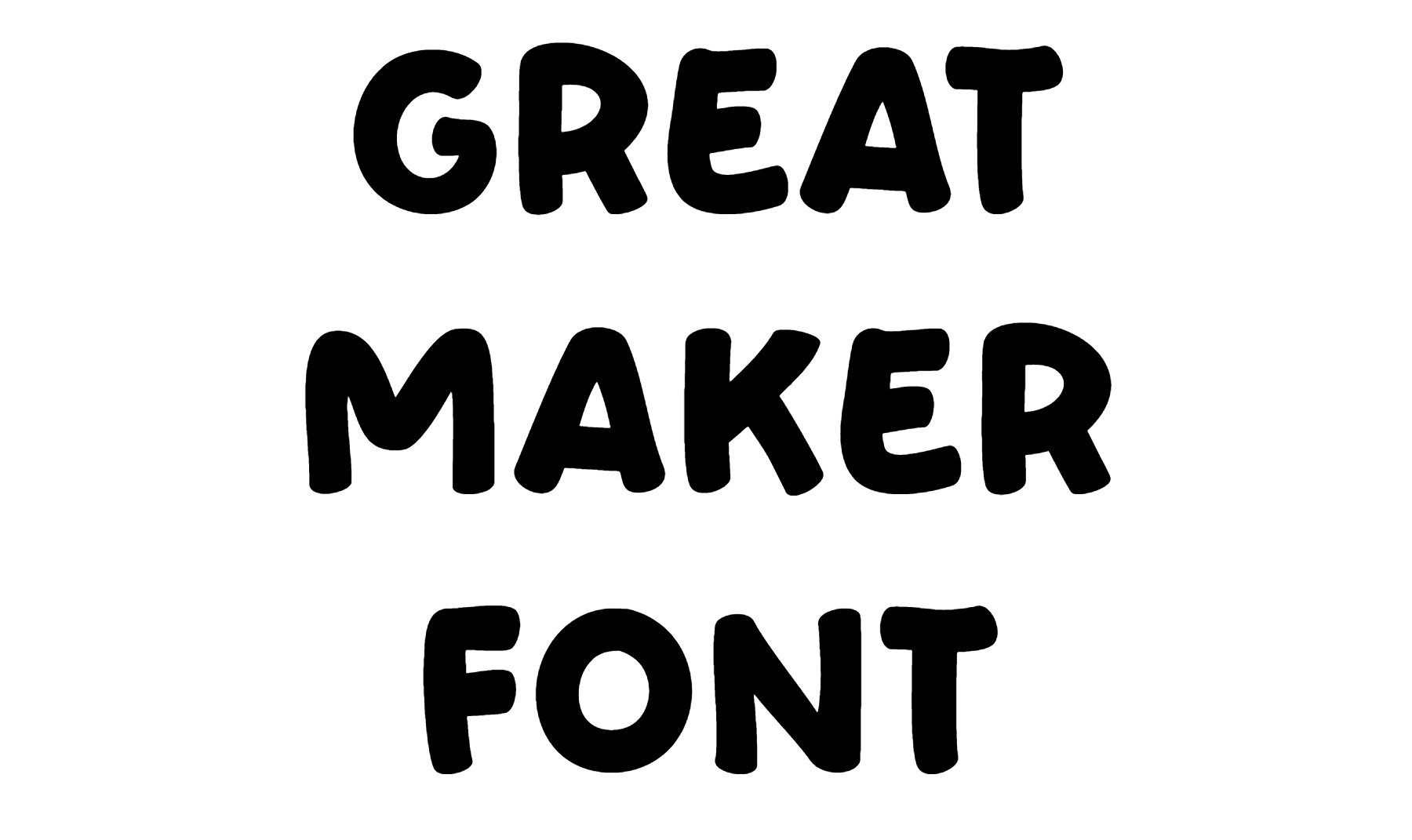
Great Maker
Great Maker is a cartoon font created by MJType (Muhamad Junaid). It has a cheerful, hand-drawn look that makes people smile before they even read the words. You can download it for free and test it with your own words in the preview above.
- Designer: MJType (Muhamad Junaid)
What You Can Type With Great Maker
With complete upper and lowercase letters and all ten digits, Great Maker is ready for real wording, not just a single headline. Common punctuation such as &, !, ? and @ is included as well. It also has the accented letters you need for Spanish, French, Portuguese and Italian.
Where Great Maker Works Best
Think of Great Maker for kids' books, birthday invites and fun YouTube thumbnails. Cartoon fonts are great for short, fun lines. If you place it over a busy photo, add a thick outline or a drop shadow so it stays readable.
Does Great Maker support accented letters?
Yes. Great Maker includes the accented letters needed for Spanish, French, Portuguese and Italian, so it works for more than just English.